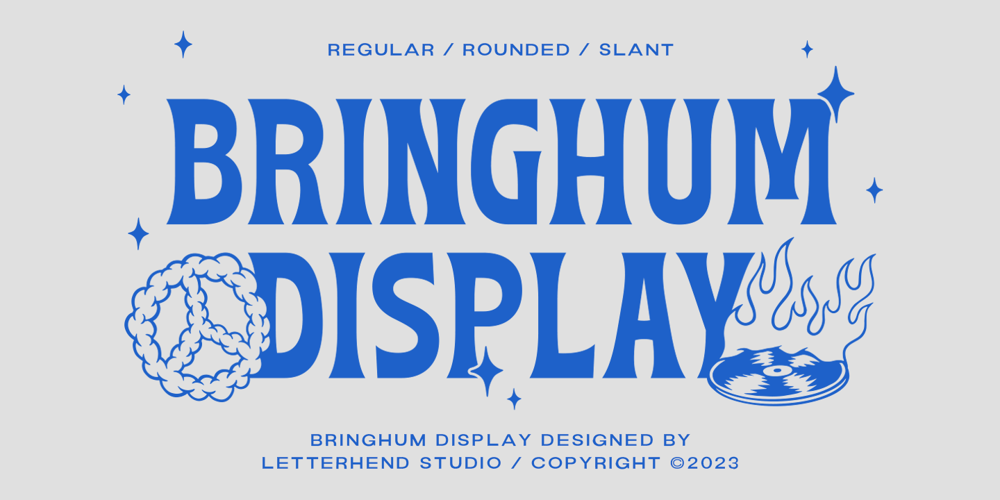
Bringhum Font Family was designed by Hendry Juanda and published by Letterhend. Bringhum contains 4 styles and family package options. Introducing Bringhum, a bold and nostalgic typeface that captures the essence of the 90s era. Immerse yourself in its retro charm. This font is exceptionally well-suited for a range of applications, particularly for logos and various formal formats such as invitations, labels, magazines, books, greeting stationery, novels, and diverse advertising materials.Features :Uppercase & lowercase, Numbers and punctuation, Alternates & Ligatures , Multilingual, & PUA encoded